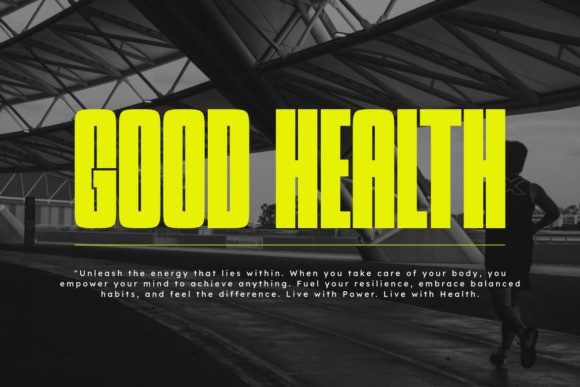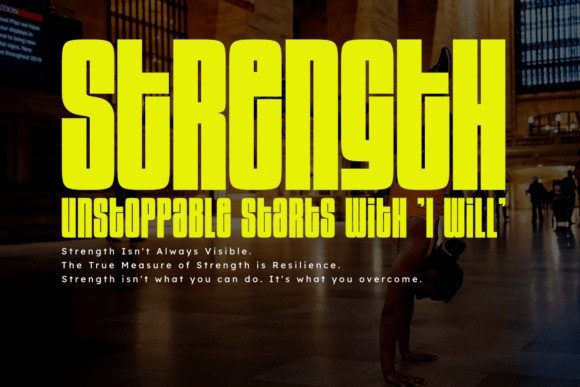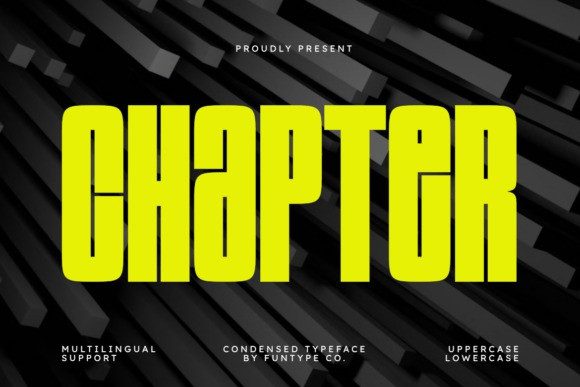
Chapter Font
Chapter Font is a bold and condensed sans-serif font designed to make a strong visual impact.With its tall proportions, sharp lines, and modern style, Chapter font is perfect for headlines, branding, posters, sports designs, editorial layouts, and advertising projects that require confidence and readability.
Whether for digital or print, this typeface brings a powerful and contemporary aesthetic to your work.